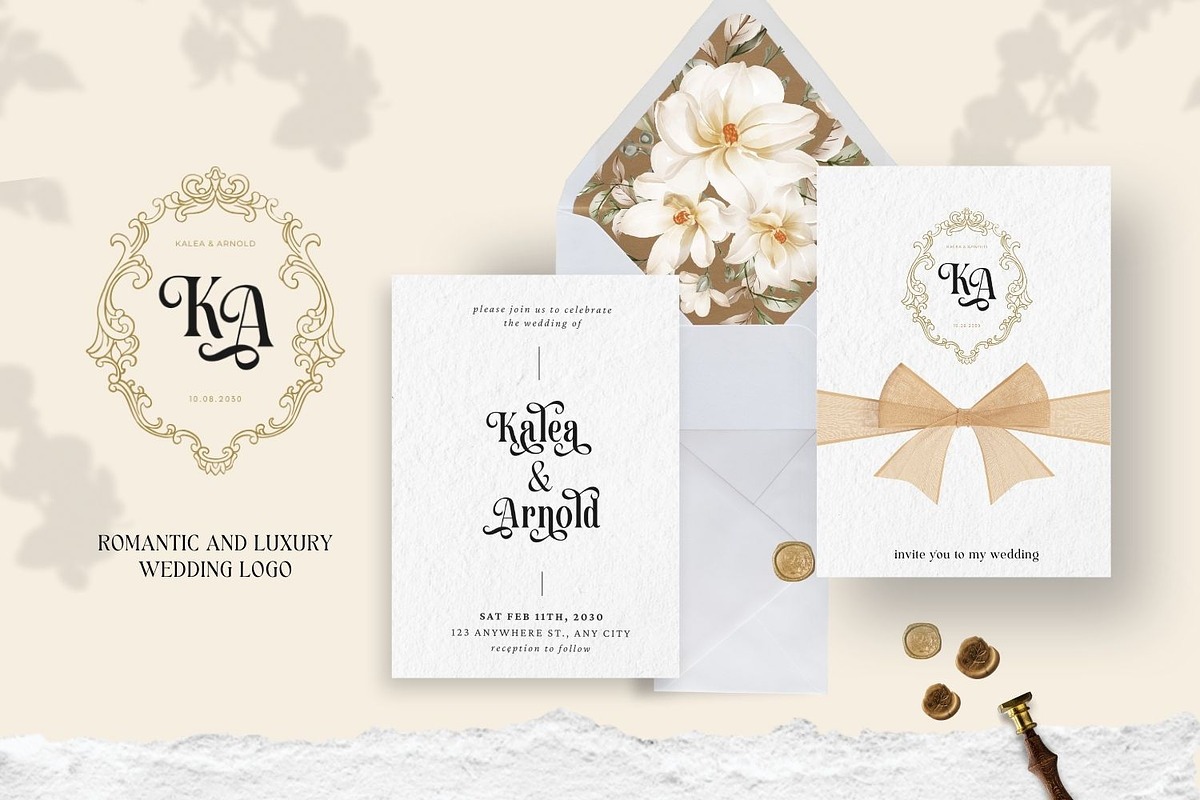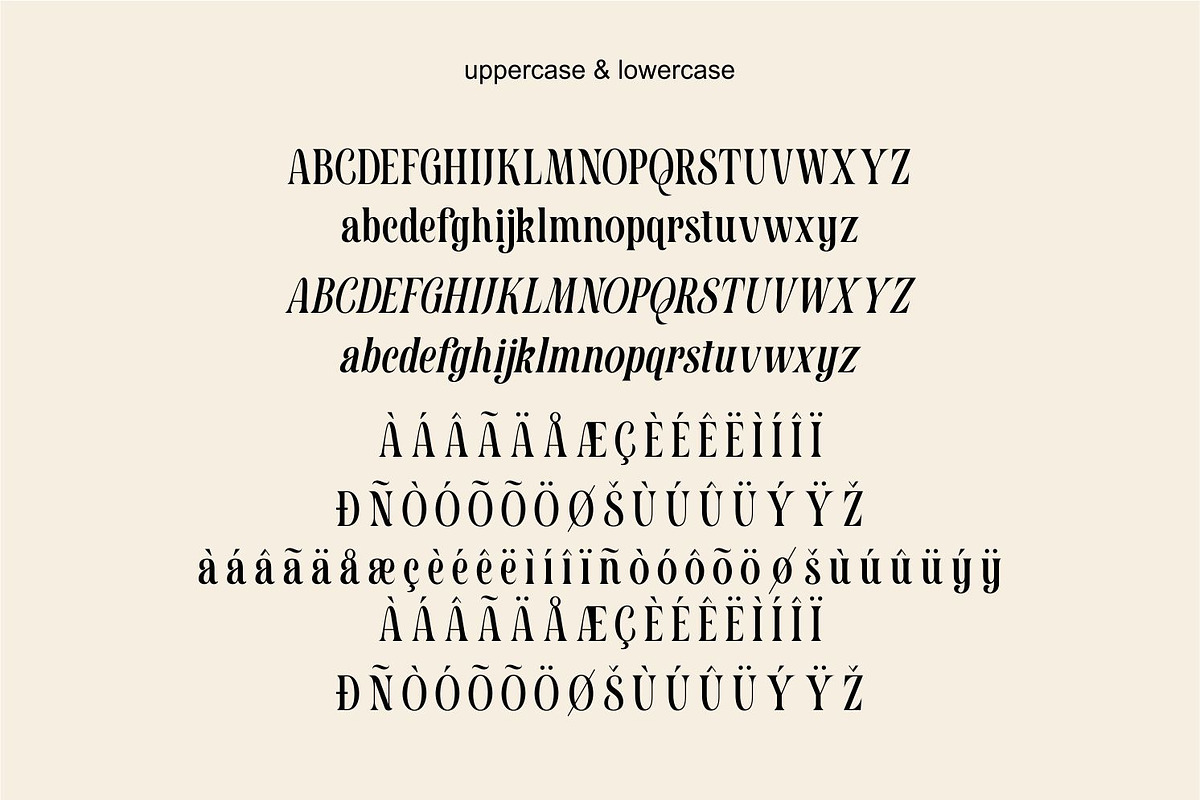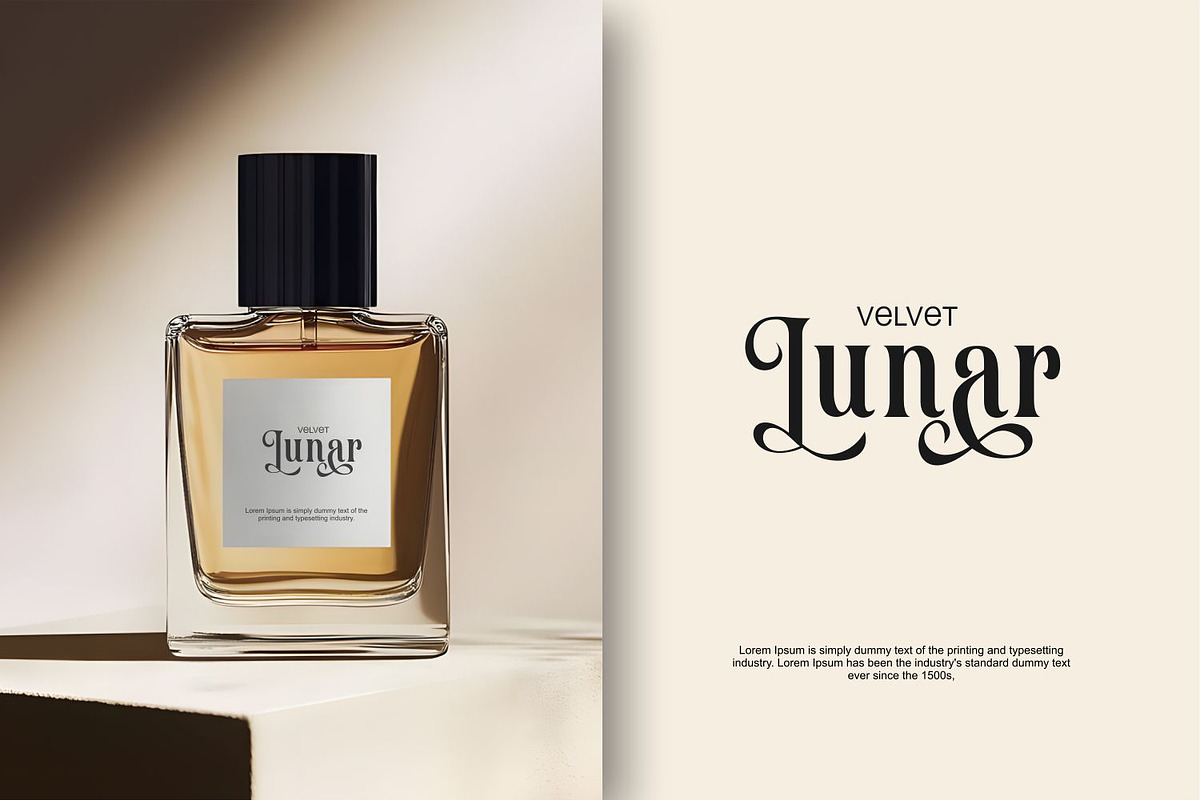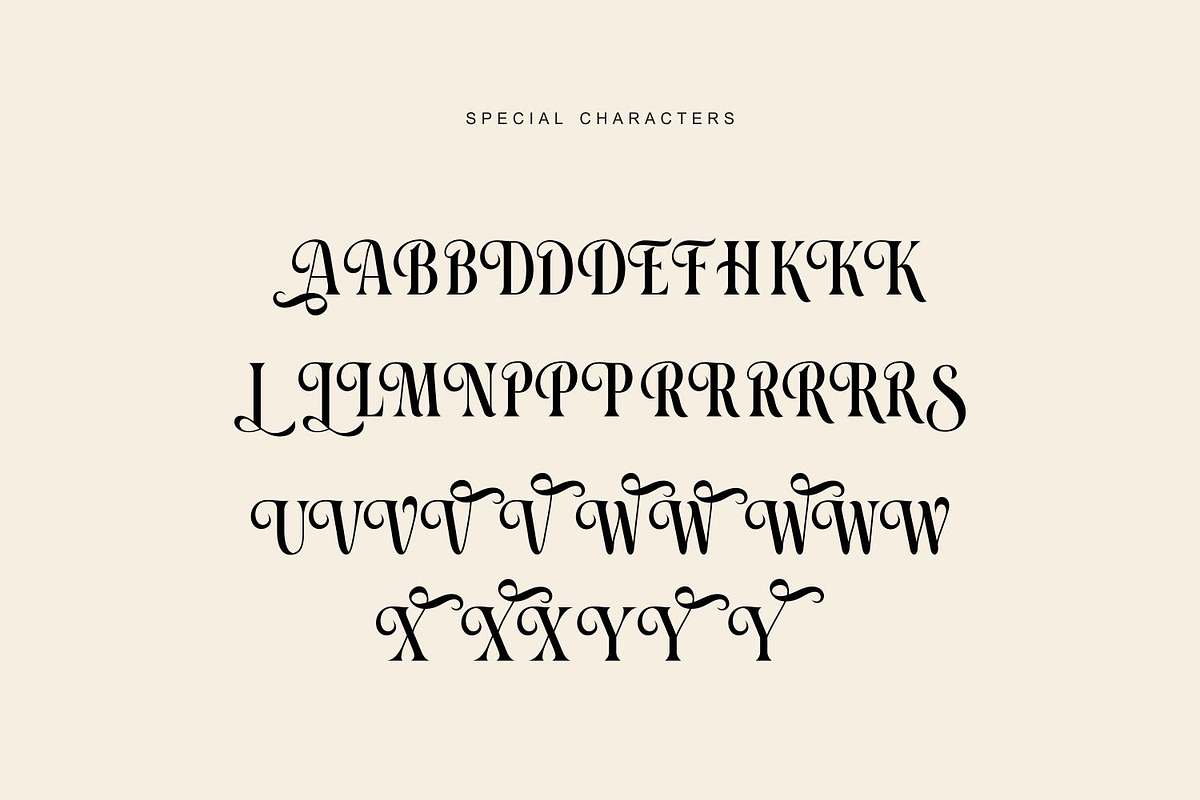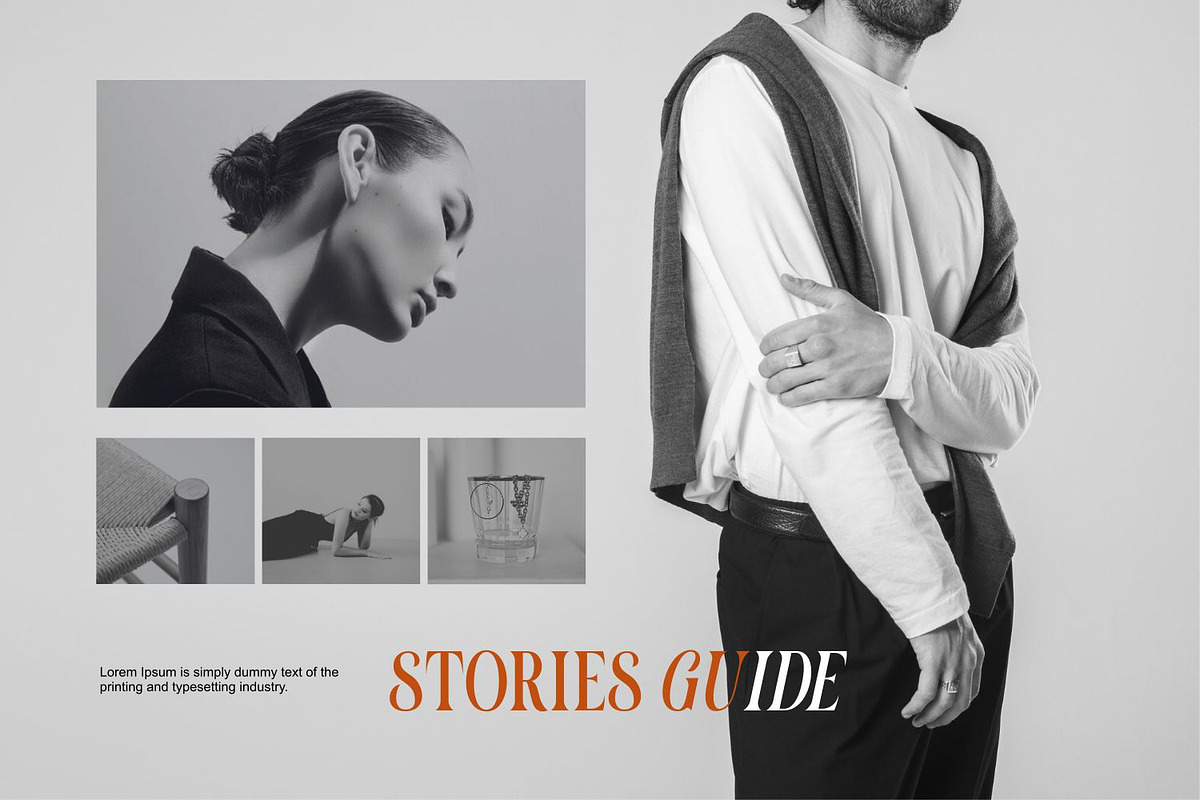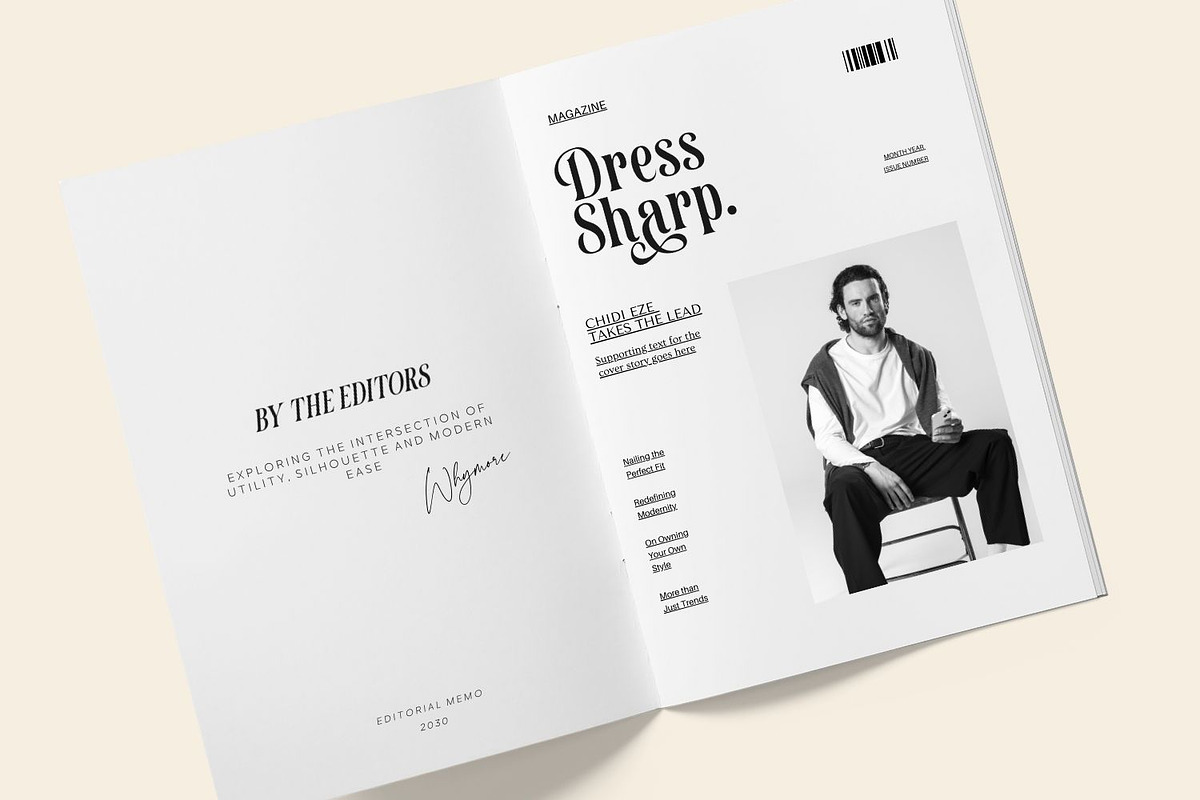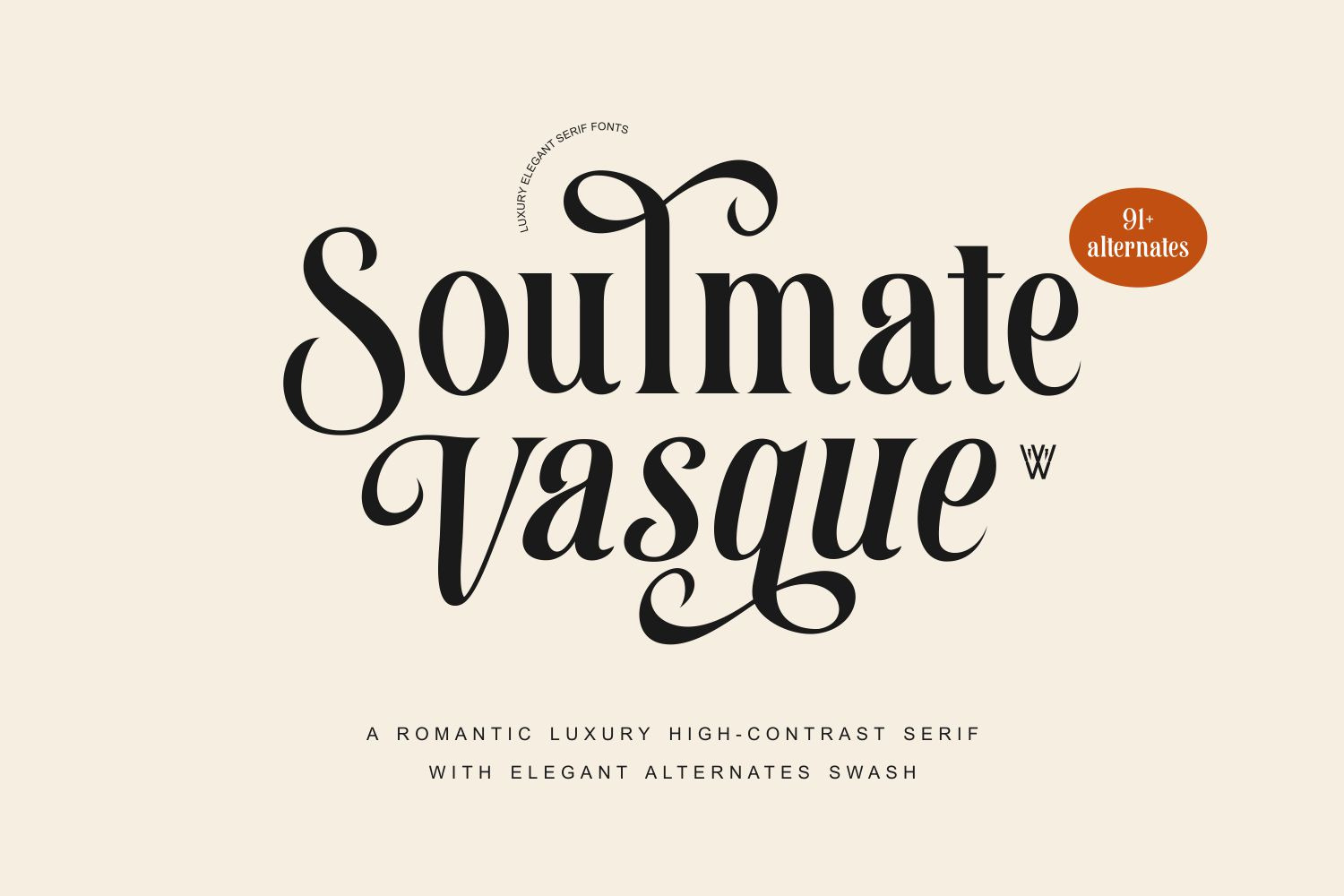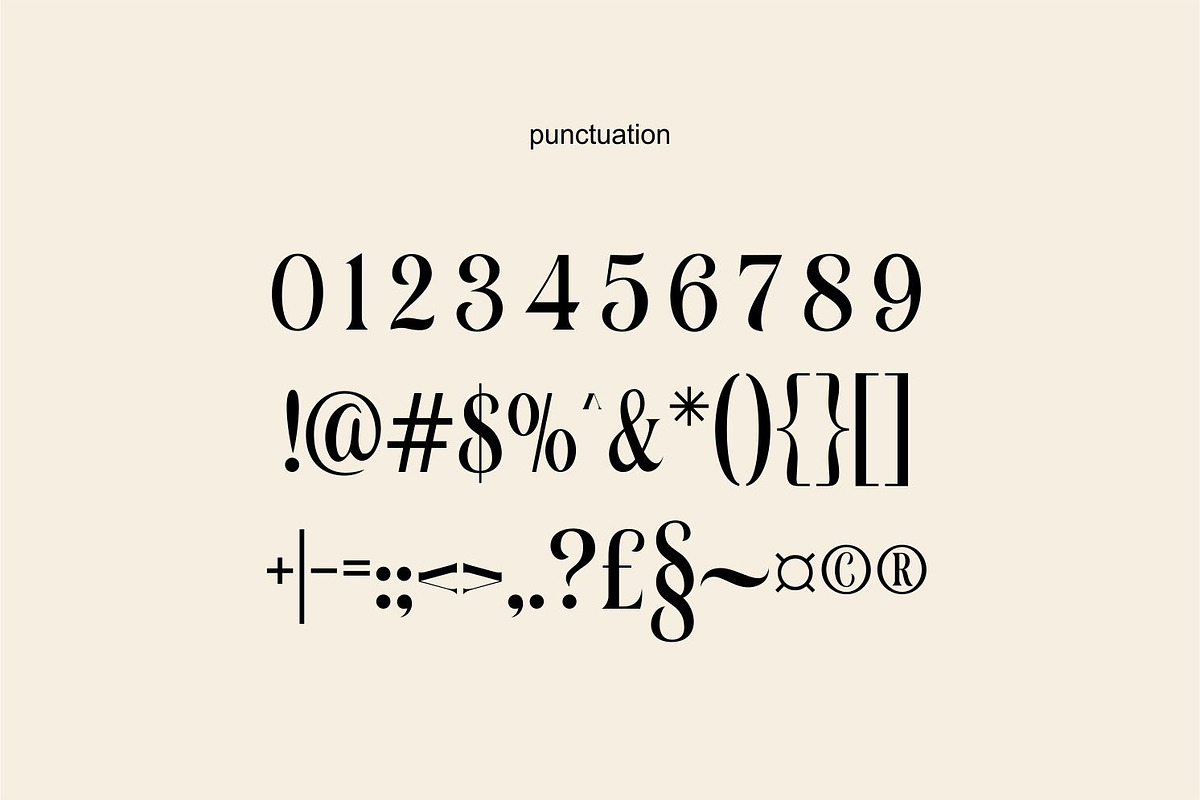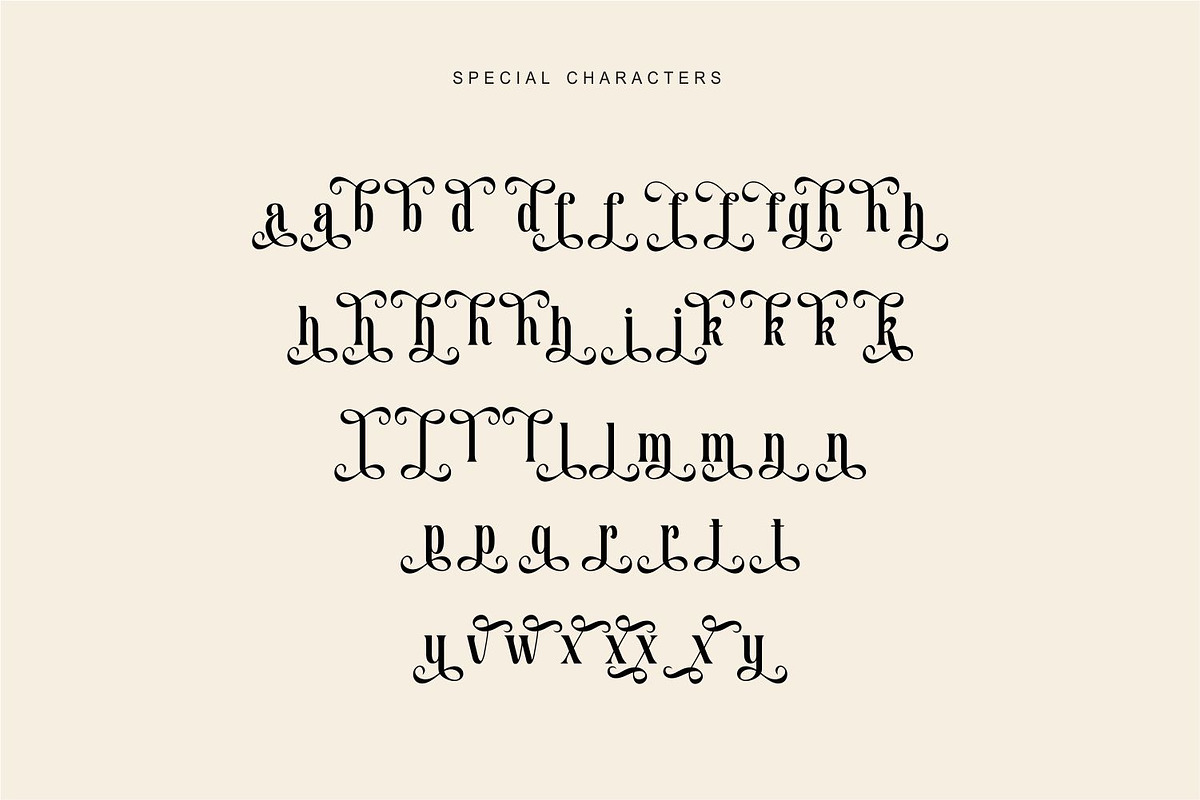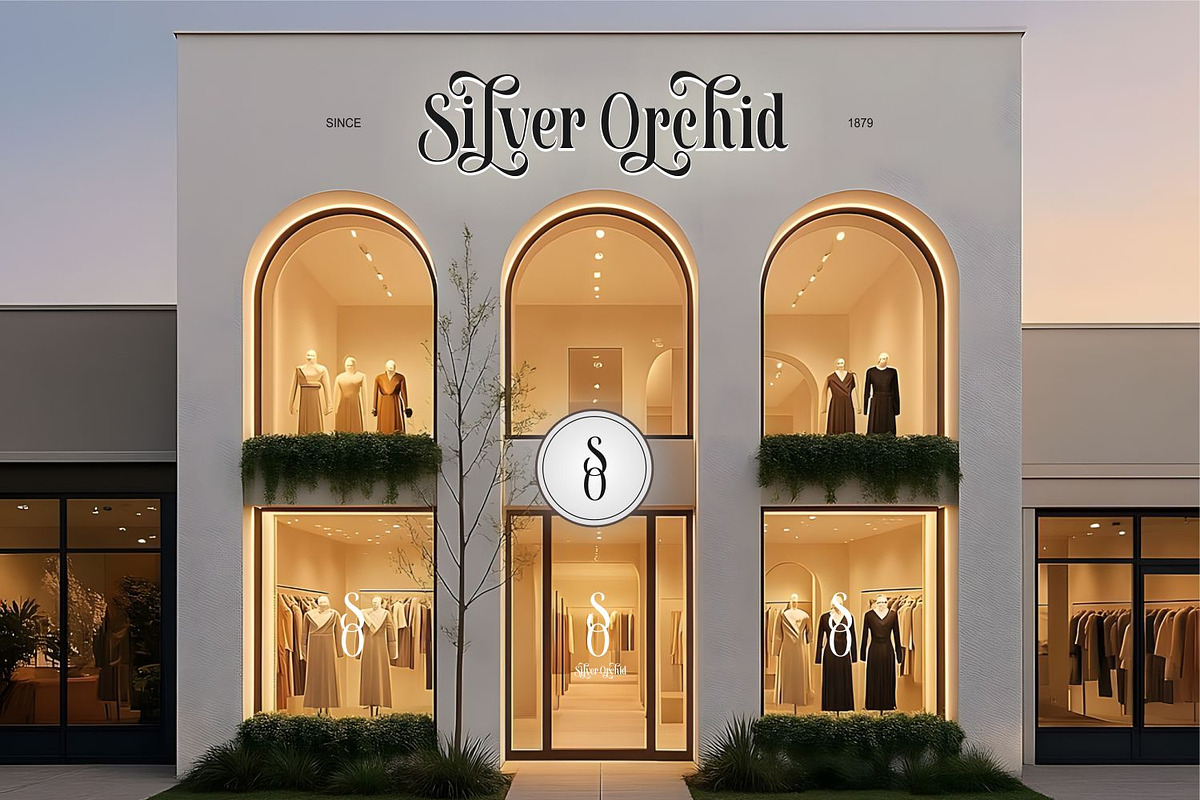
Soulmate Vasque Editoral Serif Font
“Soulmate Vasque is not just a font—it's a shortcut to designs that look expensive, romantic, and unforgettable.”
If you want to create a logo that speaks for itself, invitations that look premium without being complicated, or branding that immediately exudes international class, Soulmate Vasque is the answer. This font features luxurious serif characters with high-contrast details and dozens of dramatic swashes that instantly transform ordinary designs into something more valuable, more trustworthy, and more iconic.
Why do many professional designers love Soulmate Vasque? ✨ Because each letter has been designed to look like signature luxury branding. ✨ Because 91+ alternates give you thousands of unique combinations—no two designs will ever feel the same. ✨ Because its vibes instantly evoke the romantic luxury aesthetic that is exploding on Pinterest & Canva. ✨ Because this font makes clients feel your designs are “more expensive,” so you can confidently raise your rates.
Use Soulmate Vasque for: ✔ Luxury branding & logo design ✔ Wedding invitation & stationery ✔ Editorial & magazine layout ✔ Beauty, fashion, perfume & boutique branding ✔ Social media & typography art ✔ Packaging premium & product display
Just one font, and your designs will look like they were created by a top-tier branding studio.
• Luxury high-contrast serif • Romantic editorial curves • Elegant swashes & stylistic alternates • Smooth visual flow for headlines • Perfect for logos & branding systems • Clean and modern spacing & kerning